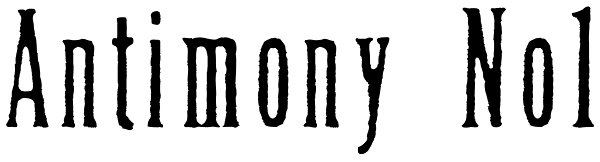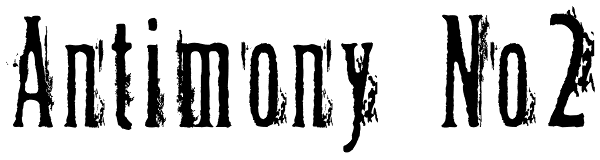
Antimony
Antimony is a stylized grunge font offering strong, legible vertical height. Based on letterpress samples from the late 1800s/early 1900s. Significant number of diacriticals included for multilanguage support.
Antimony No1
Antimony No2